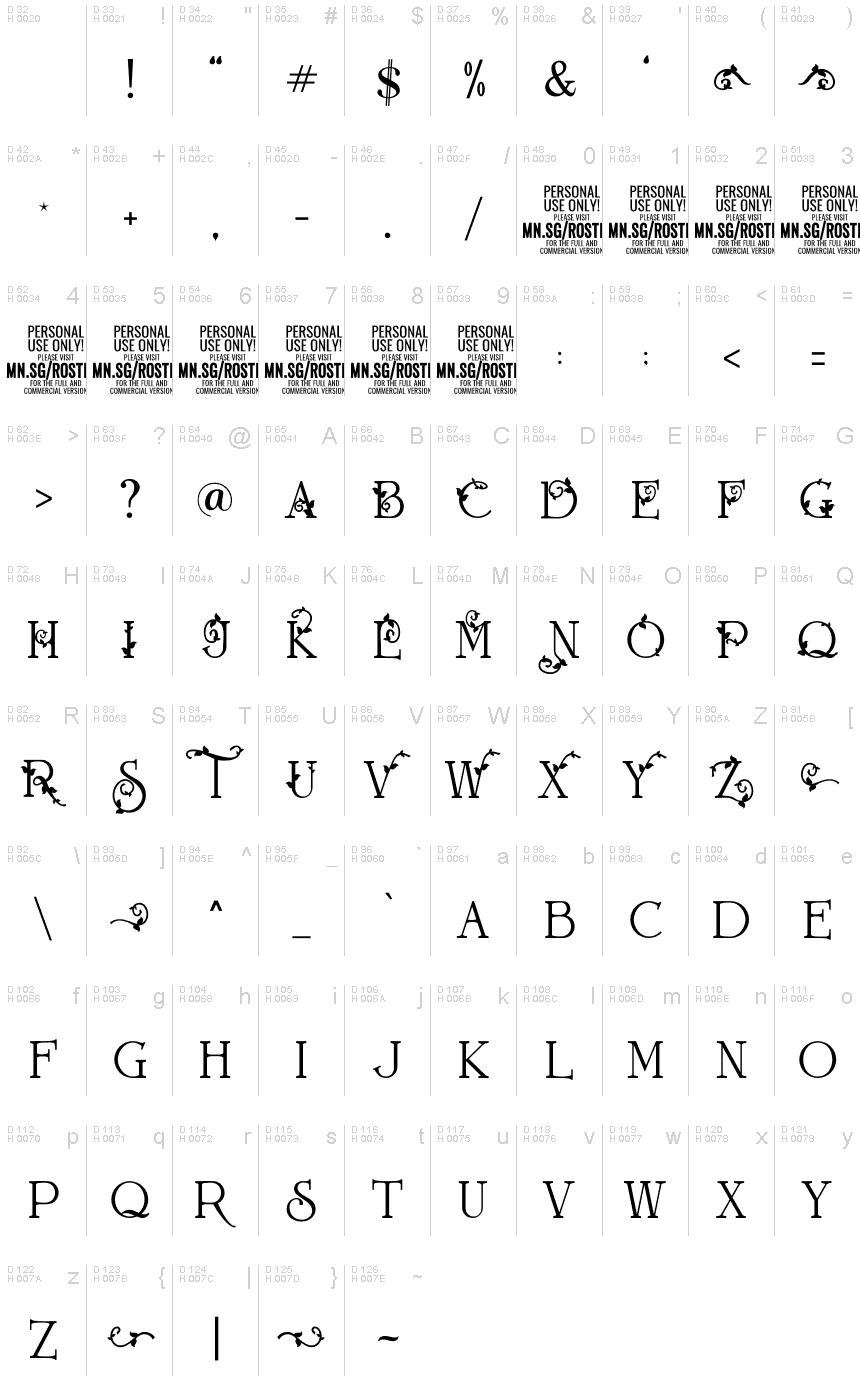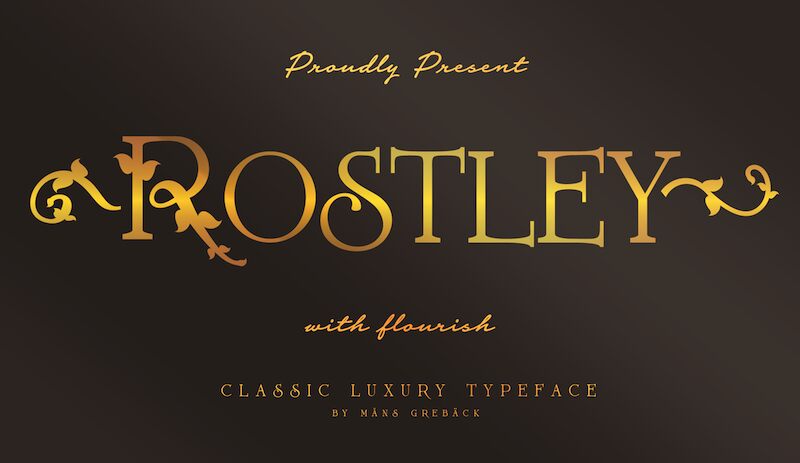
Rostley PERSONAL USE ONLY Regular
Rostley is a decorative serif font that blends classic elegance with ornamental charm. With its floral and leafy accents, Rostley adds a touch of cuteness and sophistication to any design.
Use parenthesis symbols ( ) { } [ ] to make floral elements.
Example: (Flower Style]